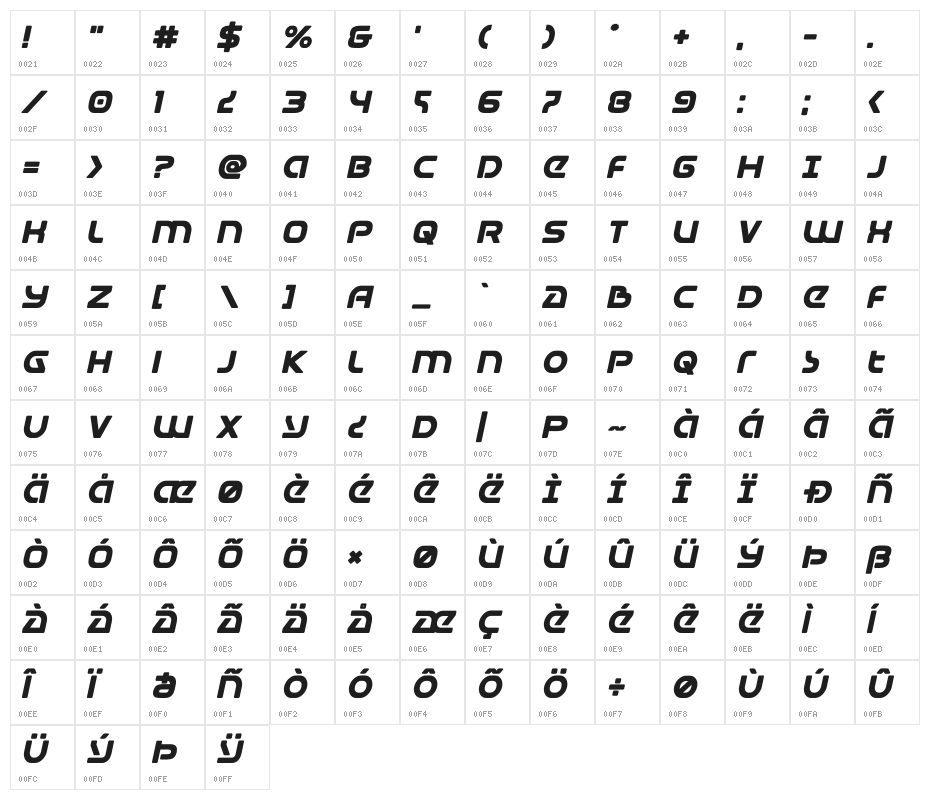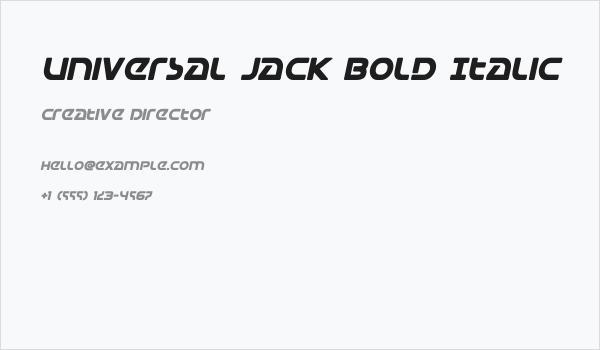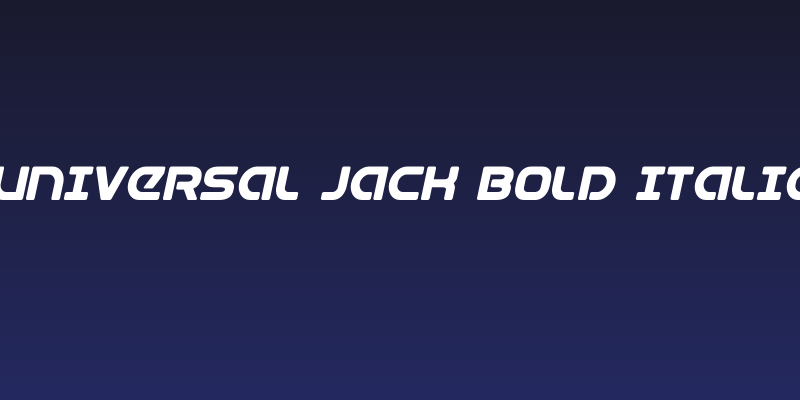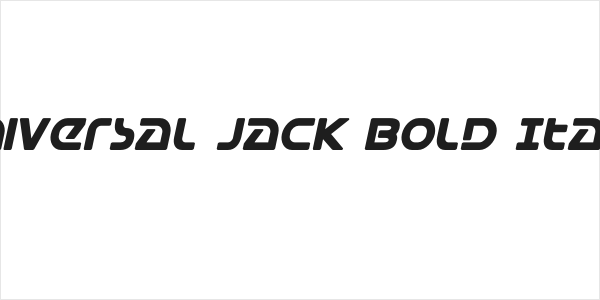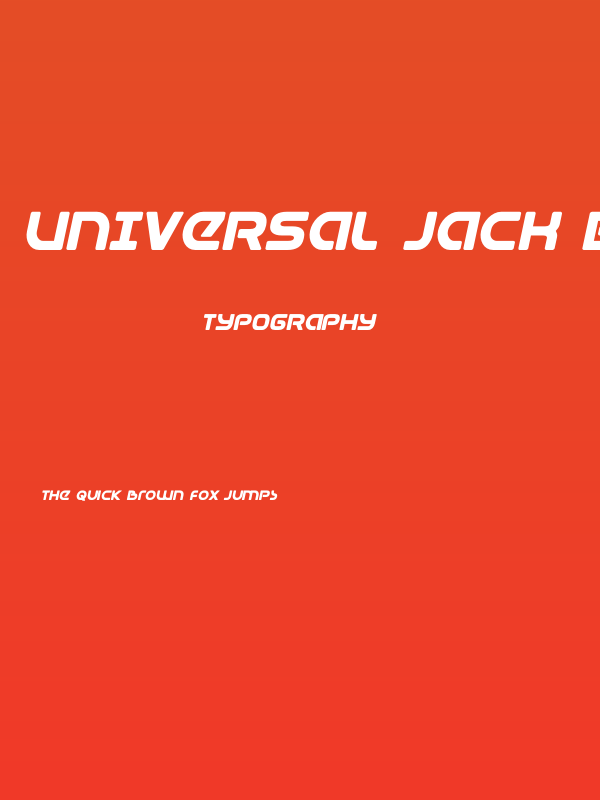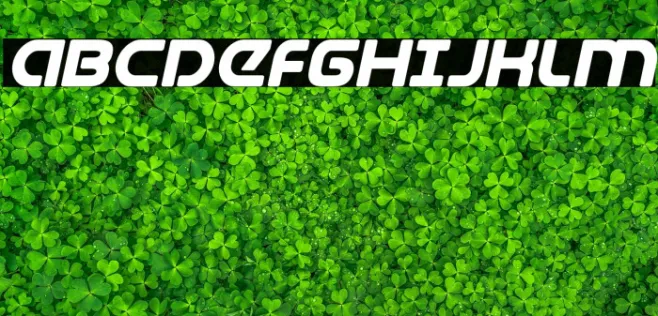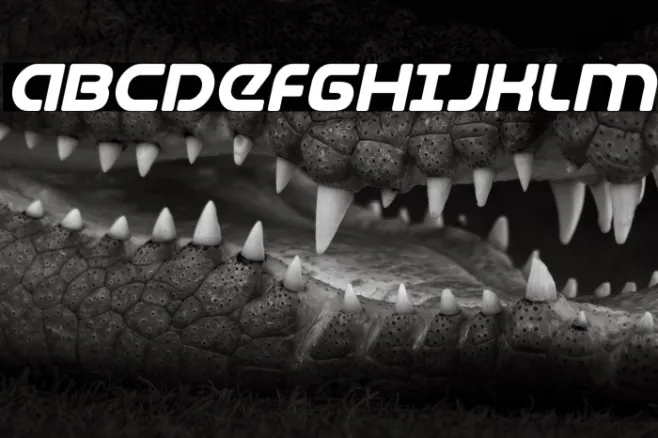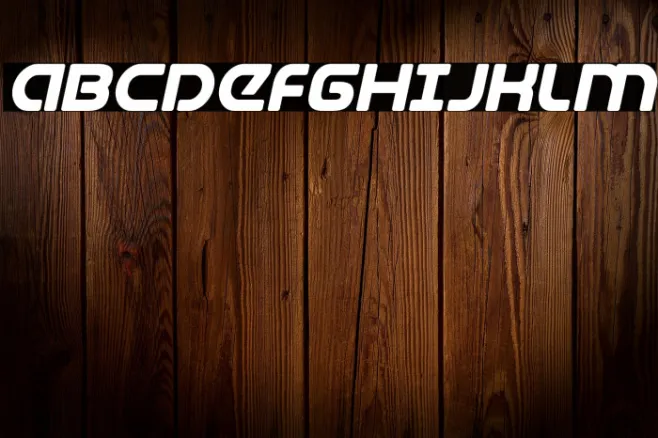
Universal Jack Bold Italic Font
Universal Jack Bold Italic Description
This font features a bold and italicized style with a modern and dynamic appearance. The characters are slightly slanted, giving a sense of motion and energy. The strokes are thick, contributing to its boldness, and the overall design is sleek and contemporary. The uppercase and lowercase letters maintain a consistent style, with rounded edges and smooth curves. The numerals and special characters follow the same design principles, ensuring uniformity across all glyphs. This font is well-suited for projects that require a strong and impactful visual presence.
| Proposed Projects | Ideal for sports branding, dynamic posters, modern advertisements, and tech-related designs. |